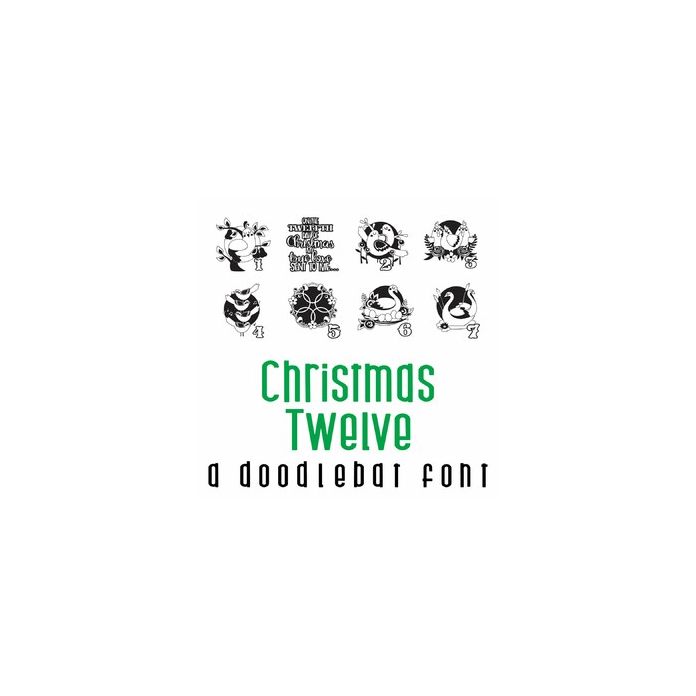
This adorable doodlebat font features 26 images of the twelve days of Christmas. Perfect for cards, crafts, gifts, decor, scrapbook pages, planner stickers, and more!